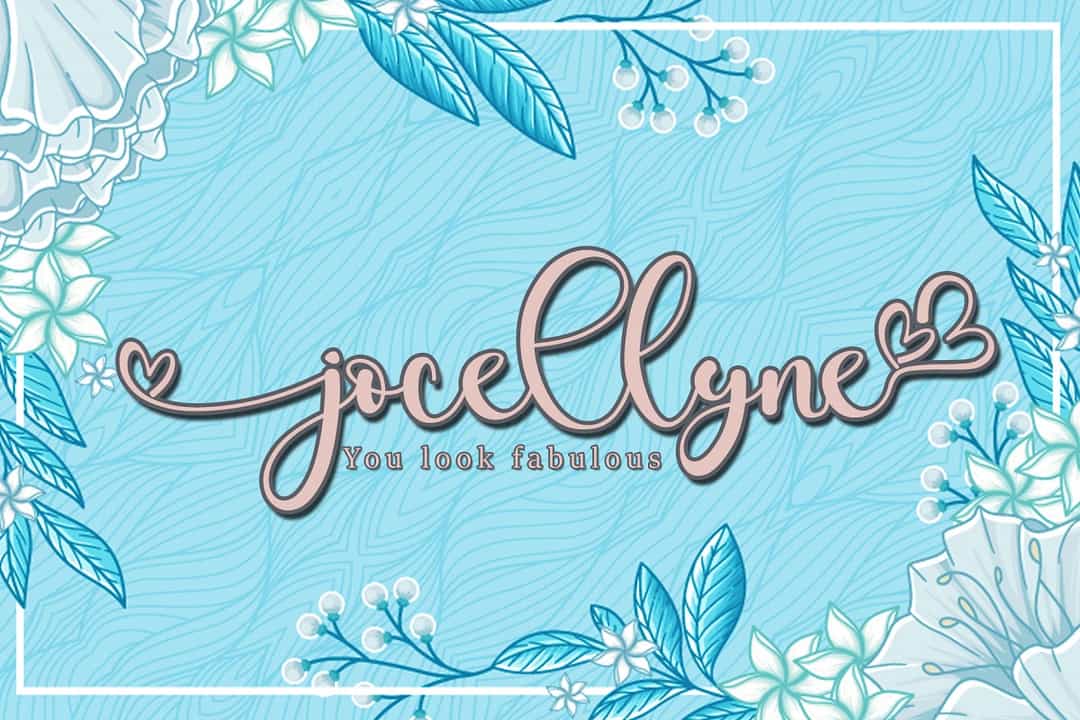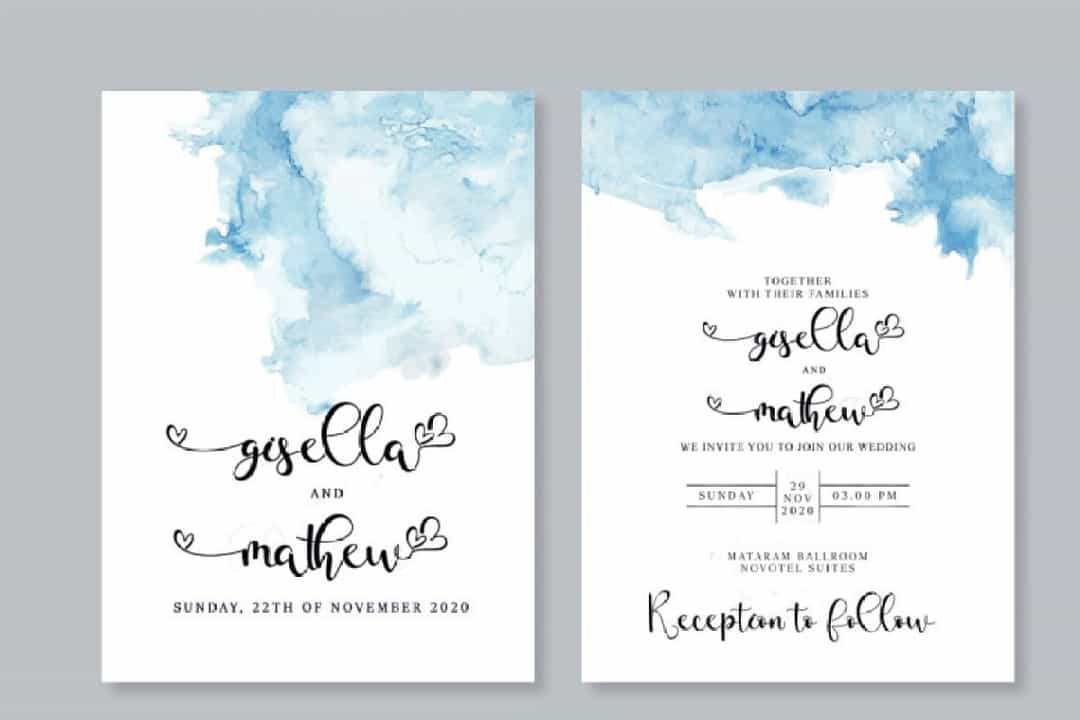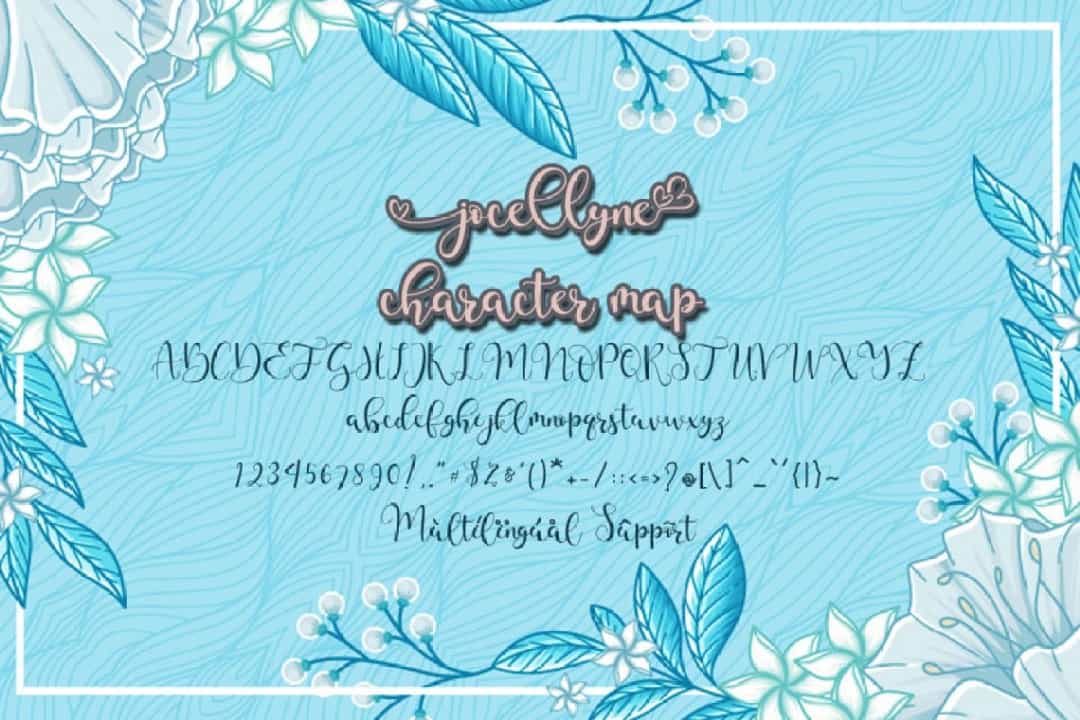
Discover Jocellyne Font, part of the Calligraphy Handwritten Script collection—a versatile and unique font perfect for adding a personal touch to your projects. Download it for free and enjoy crafting designs with style, from invitations to social media posts. This font is available exclusively for personal use, giving you the freedom to create without limits. Unlock your creativity with Jocellyne Font today!
Jocellyne is a elegant handwritten font. As you can see, there are beautiful characters and the balance of the blade can be used in a number of styles. Jocellyne is ready to offer you the easy and pleasant interface with the great look and versatile options that will make your imagination come true! You just have to use it in any creative idea that you have and witness how Jocellyne enhances them!